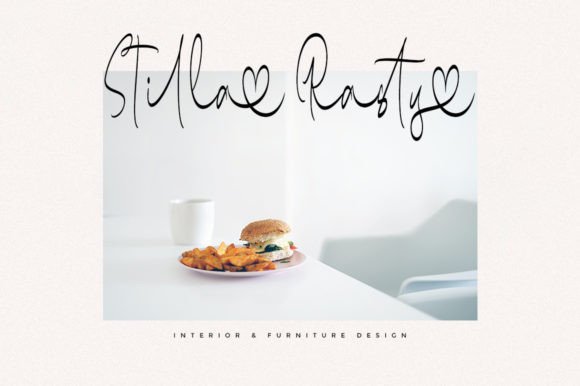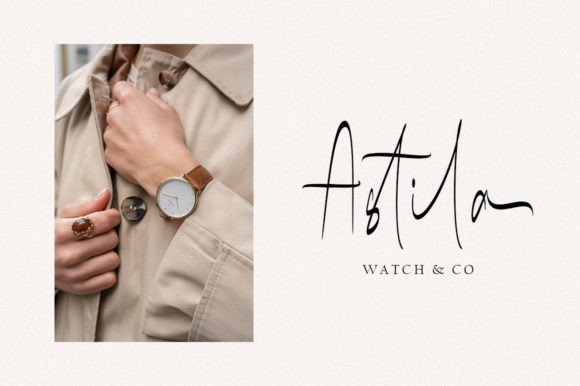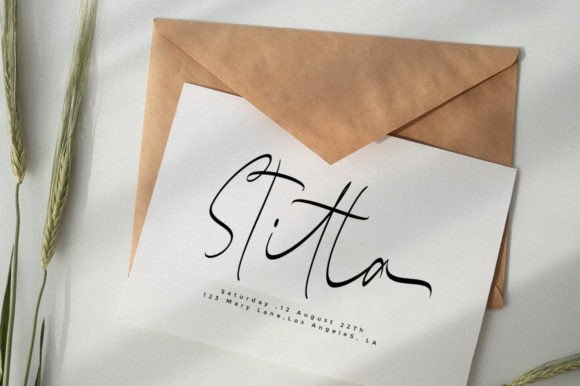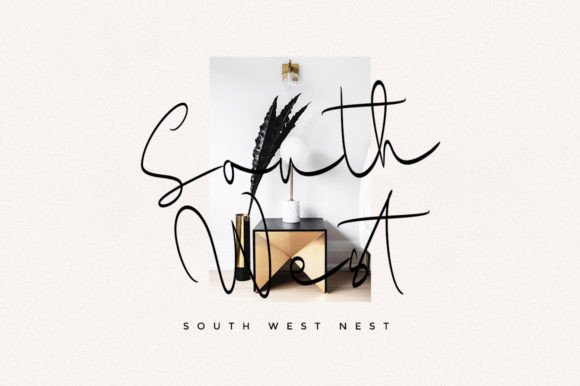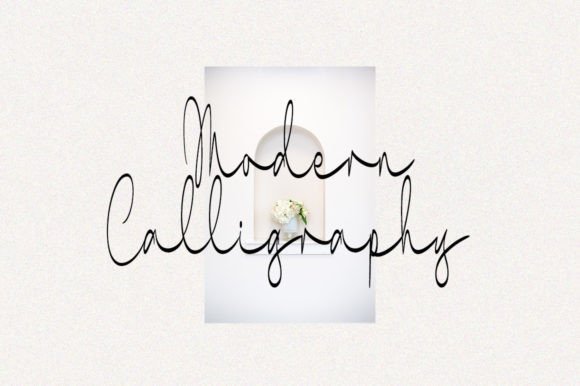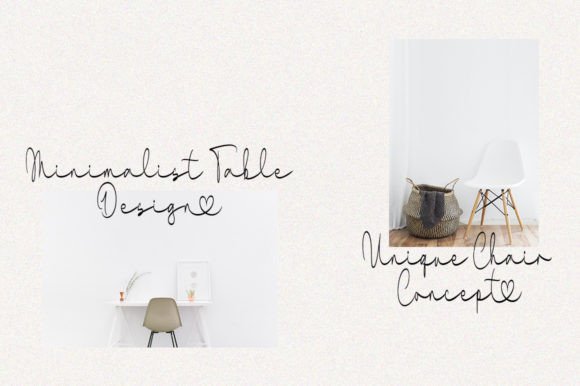
The Perfect Brushstroke: Unveiling the Gosfila Signature Font
Have you ever sat at your desk, staring blankly at a blank piece of paper, searching for the perfect way to express your creativity? For designers, this moment is all too familiar. The blank page can be a daunting task, but what if you had the perfect tool to bring your ideas to life? Enter the Gosfila Signature Font, a natural and flowing handwritten font that’s designed to capture the essence of your unique style.
This versatile font is perfect for a wide range of applications, from logos and invitations to social media posts and product packaging. With its PUA encoding, you can access all the glyphs and ligatures with ease, making it a valuable addition to any designer’s toolkit. Whether you’re a seasoned pro or just starting out, the Gosfila Signature Font is sure to become your go-to choice for adding a personal touch to your designs.
- Font Family: Gosfila Signature Font is a unique, hand-drawn font family designed for personal and professional use.
- Unique Characteristics: Gosfila Signature Font features a unique blend of modern and vintage elements, with intricate details and subtle texture, making it perfect for adding a touch of elegance and sophistication to your designs.
Gosfila Signature Font Review
I recently had the chance to dive into the Gosfila Signature Font, and I must say it’s an intriguing addition to any designer’s toolbox. ✨
- Unique and stylish letterforms that evoke a sense of elegance ✨
- The font is highly versatile, making it suitable for various design projects, from logos to magazine headings
- ⚠️ Limited character set: The font is missing some essential characters, which can be a nuisance for designers working on projects that require a full range of characters
- ⚠️ Not ideal for text-heavy content: The font’s ornate design makes it difficult to read large blocks of text, which can be a problem for designers working on documents or articles
Overall, I’d say the Gosfila Signature Font is a great addition to any designer’s collection, but it’s not a one-size-fits-all solution. It’s perfect for projects that require a touch of elegance and sophistication, but may not be the best choice for more straightforward design work. With a bit of planning and creative problem-solving, the Gosfila Signature Font can be a valuable asset in your design arsenal.
Getting the Most Out of Gosfila Signature Font
Use the font in conjunction with bold or italic styles to add emphasis.
Combine the font with other design elements, such as graphics and images, to create a visually appealing design.
Use the Gosfila Signature Font for branding and marketing materials, such as business cards and brochures.
Apply the font to digital designs, such as social media graphics and website headers.
Use the font in print materials, such as posters and flyers, to create a cohesive look.
Alternative Font Options for Gosfila Signature Font
Playfair Display is an elegant and luxurious script font, ideal for formal invitations, wedding stationery, and high-end branding. It features intricate details and flourishes, making it perfect for creating a sense of sophistication and refinement.
Compared to Gosfila Signature Font, Playfair Display has a more classic and traditional feel, with a greater emphasis on ornate details. While Gosfila Signature Font has a modern and cursive feel, Playfair Display is better suited for formal and luxurious designs.